When it comes to grabbing attention and making a strong visual impact, display fonts are your best design weapon. These fonts are made to stand out, which is perfect for headlines, posters, logos, packaging, and creative branding.
In this curated list, we’ve rounded up 20 of the best choices from Lettersiro, each with its own personality and purpose.
Key Takeaways:
- Display fonts add personality and impact to any design.
- The right font sets the tone: fun, bold, elegant, or edgy.
- Explore creative options like brush, script, and adventure styles at Lettersiro.
What You Should Know About Display Font
A display font is a typeface designed for large sizes, typically used in titles and headlines. Not for long paragraphs of text. Its main goal is to grab attention and convey a specific tone, mood, or emotion in a design. This font is often used for logos, magazine covers, movie posters, advertisements, and other designs that need a strong visual impact.
Find the Font That Speaks Your Style
Choosing the right display fonts isn’t just about looks; it’s about telling your story at a glance. Here are the best display fonts to make your project stand out!
1. Wildlife Brush
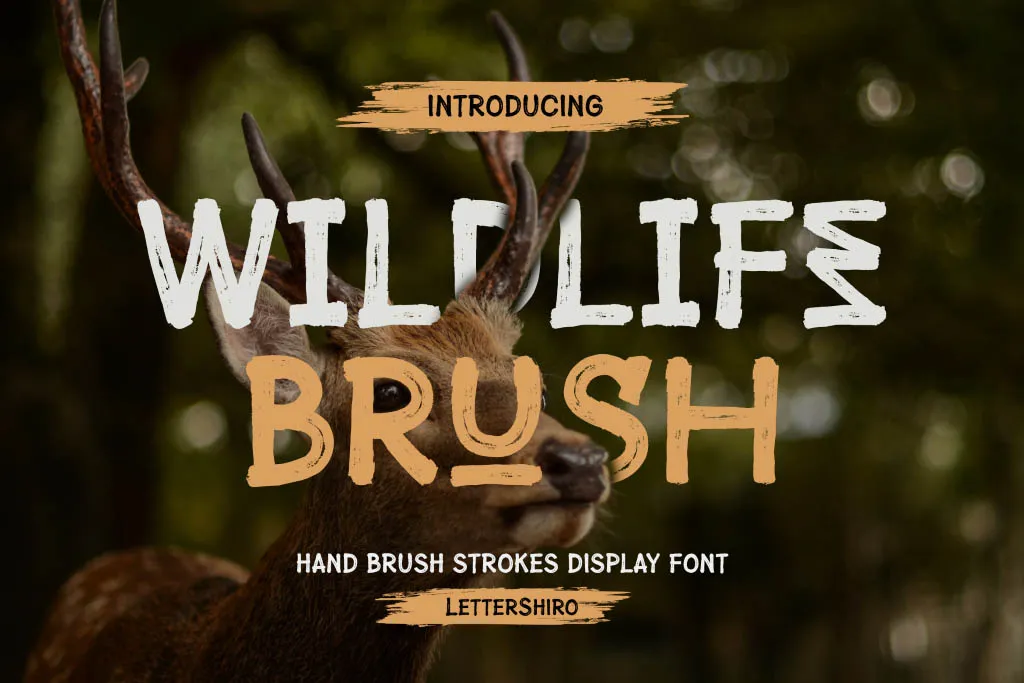
Wildlife Brush is a hand-brushed display font that features a natural, rugged feel, making it a great choice for zoo-themed designs.
2. Crispy Snack
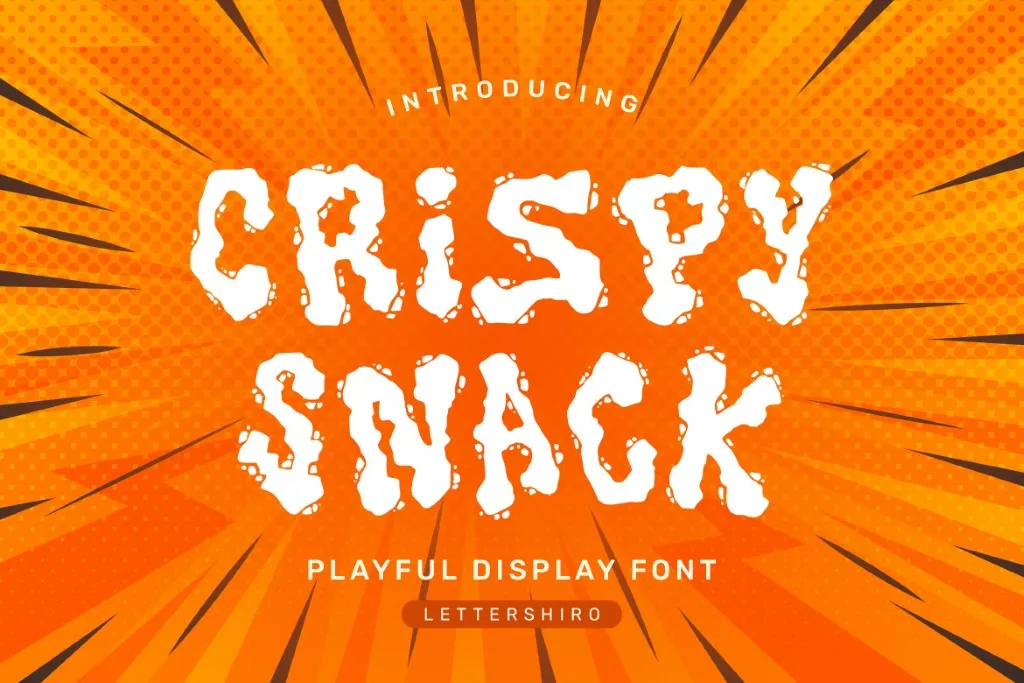
If you are looking for a bold and quirky font style, Crispy Snack is worth taking on your list! It adds energy to your food-related project and kids’ poster design.
3. Hyper Block
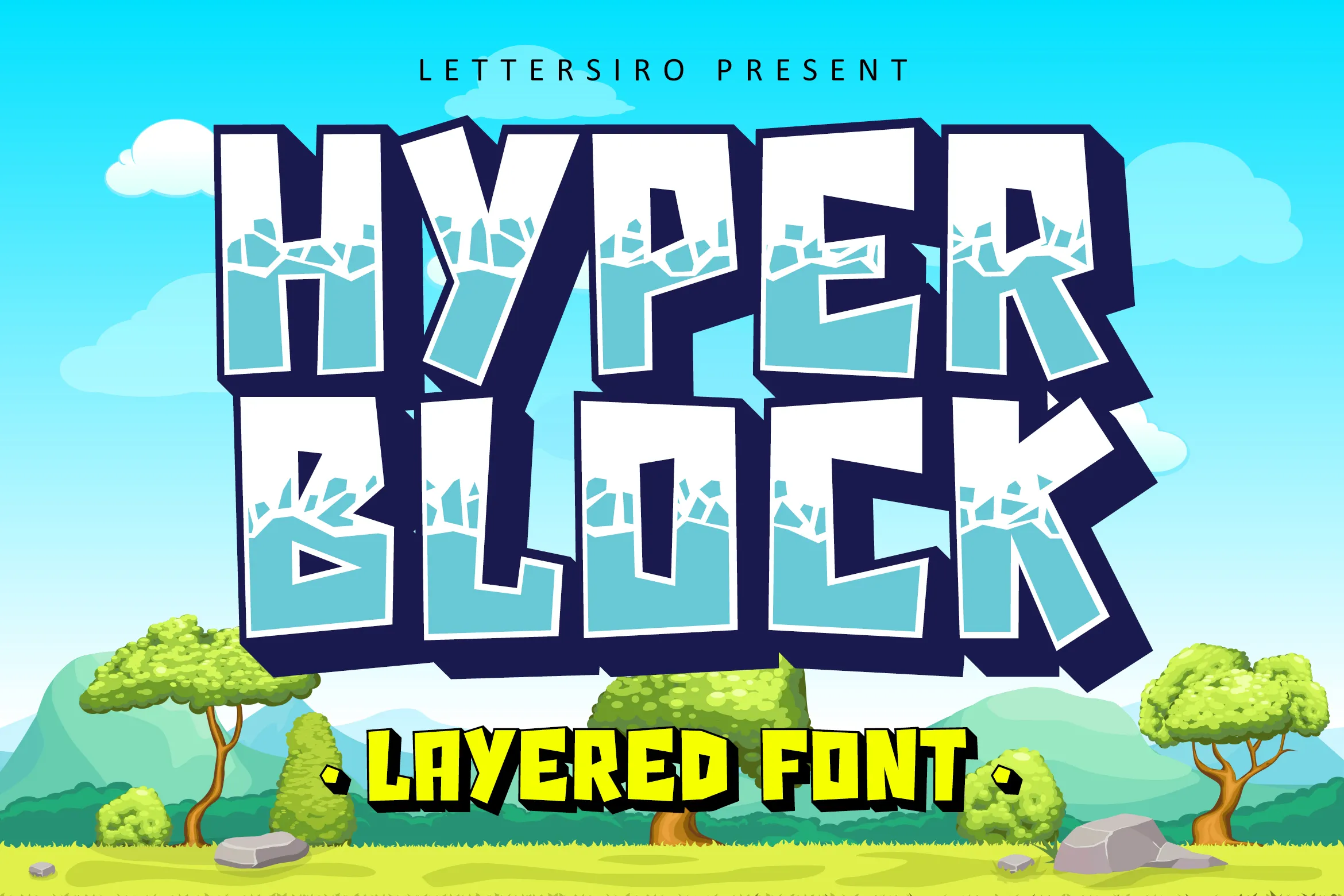
Here are the great display font examples to level up your design! Its bold, chunky shapes and cracked ice details create a fun, adventurous vibe. This one is worth adding to your notes if you are looking for a gaming-themed display font to use.
4. Hunger Flames
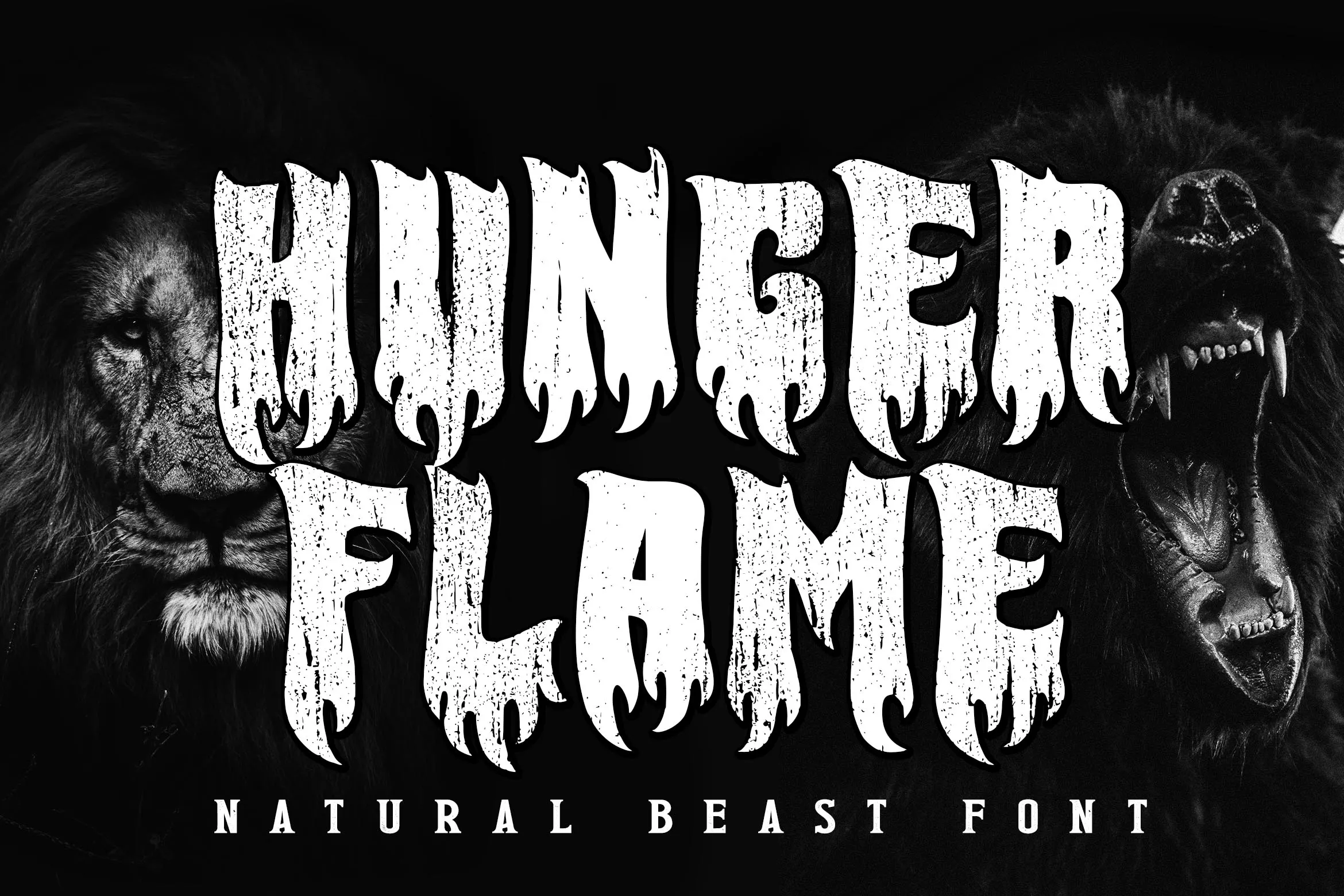
Hunger Flame has a rough, damaged appearance with jagged, flame-like edges, making it a striking, fierce display typeface. It’s made for intense visuals that need a wild, aggressive look.
5. Hulk Comic
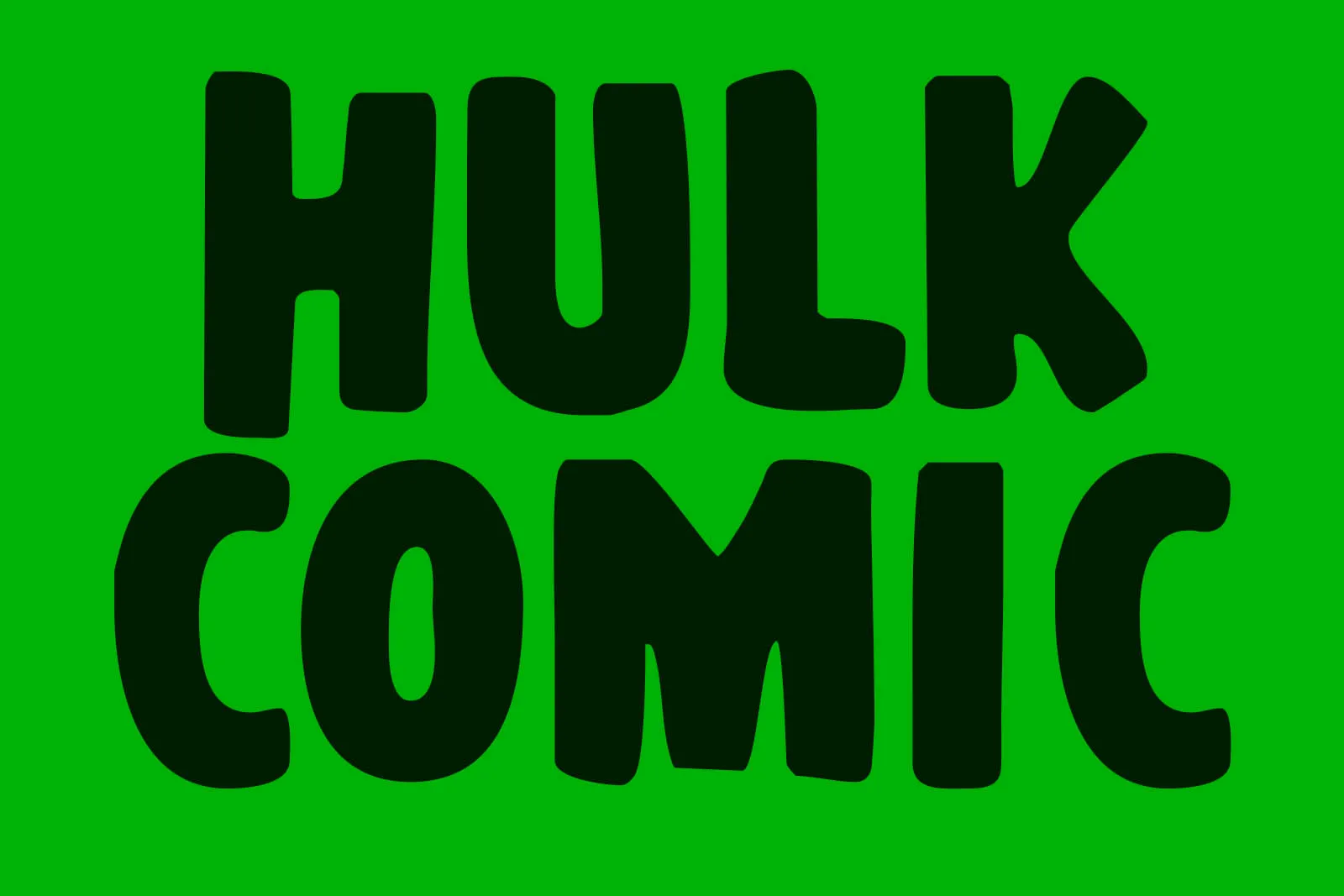
Hulk Comic packs a punch with its bold, chunky letters and rounded edges! Whether you’re designing for comics, kids, or playful posters, this font brings the fun. It’s loud, it’s friendly, and it’s made to steal the spotlight.
6. Richman
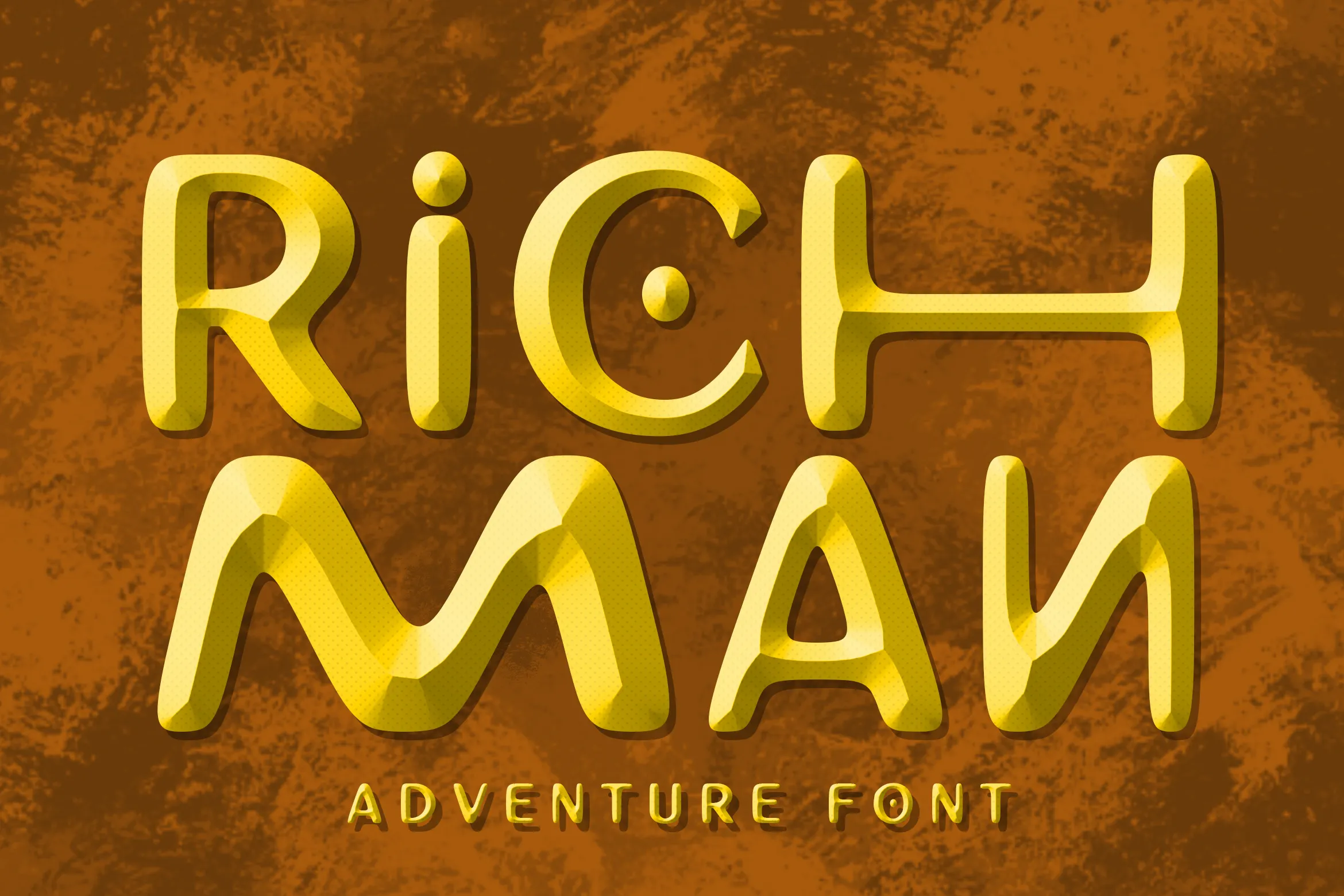
Richman is a bold display font inspired by ancient ruins and epic adventures. With its chiseled look, it’s perfect for the vibe of lost worlds and legendary quests.
7. Lettersiro
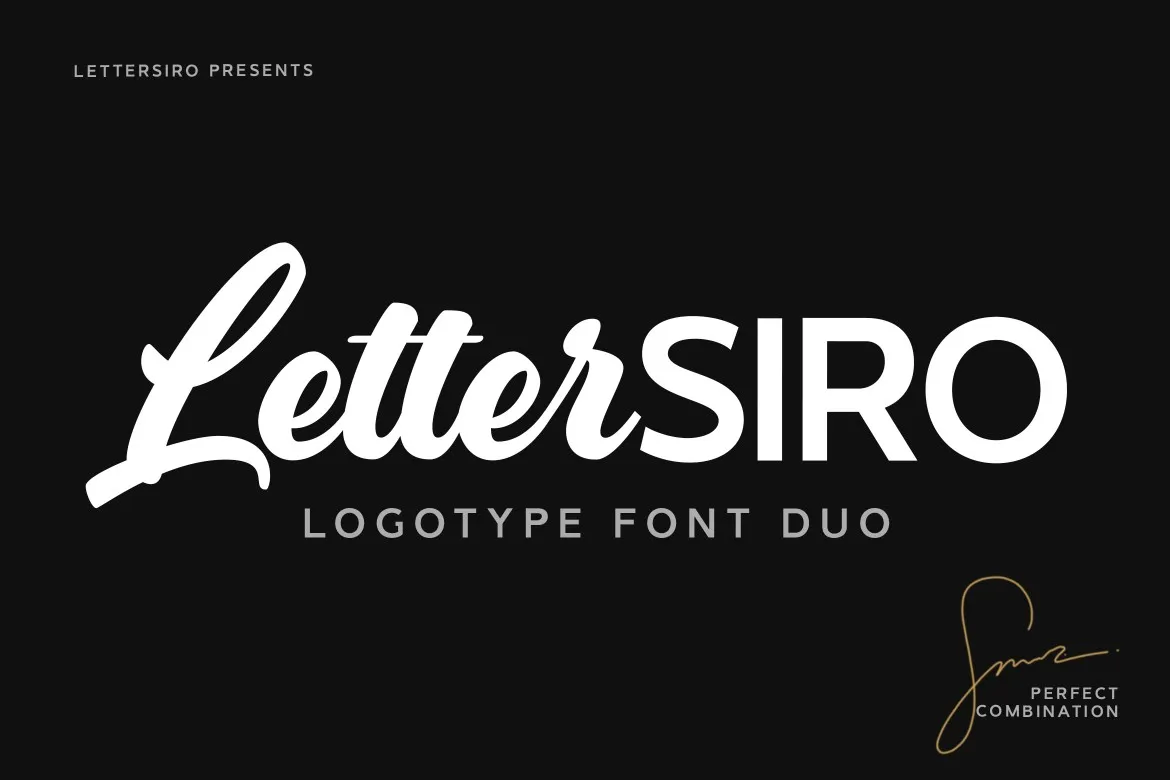
The script adds a personal touch, and the sans-serif keeps it modern and clear. Together, they make one of the best display fonts for any creative project.
8. Bomber Balloon
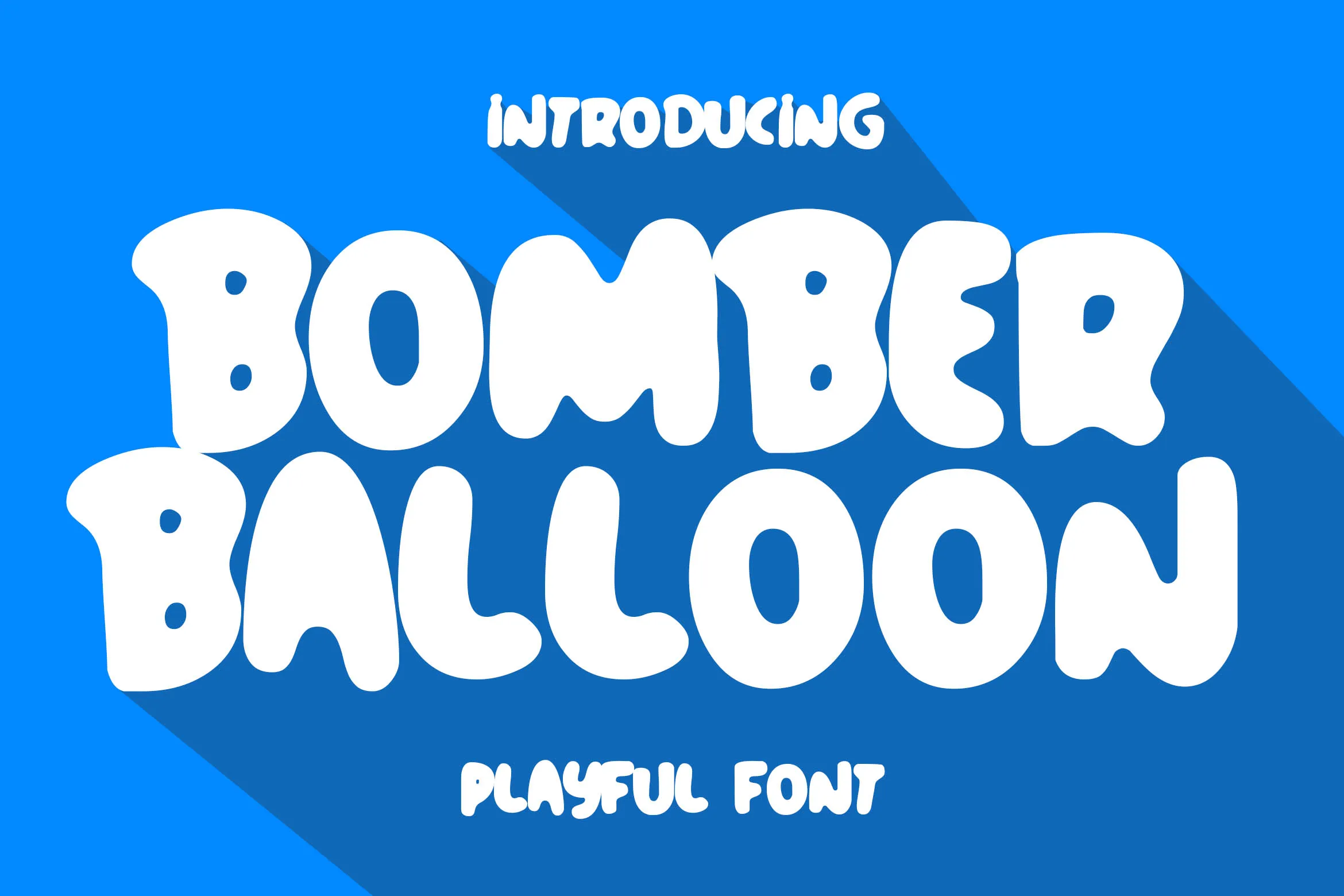
Bomber Balloon is one of the playful and bold display fonts with a fun balloon style. The font brings a cheerful and lighthearted feel to any playful branding.
9. Stalysta
The graceful strokes of Stalysta give this contemporary typeface a refined elegance. It is ideal for fashion or cosmetics branding and logos because of its elegant, feminine appearance.
10. Inzomniac
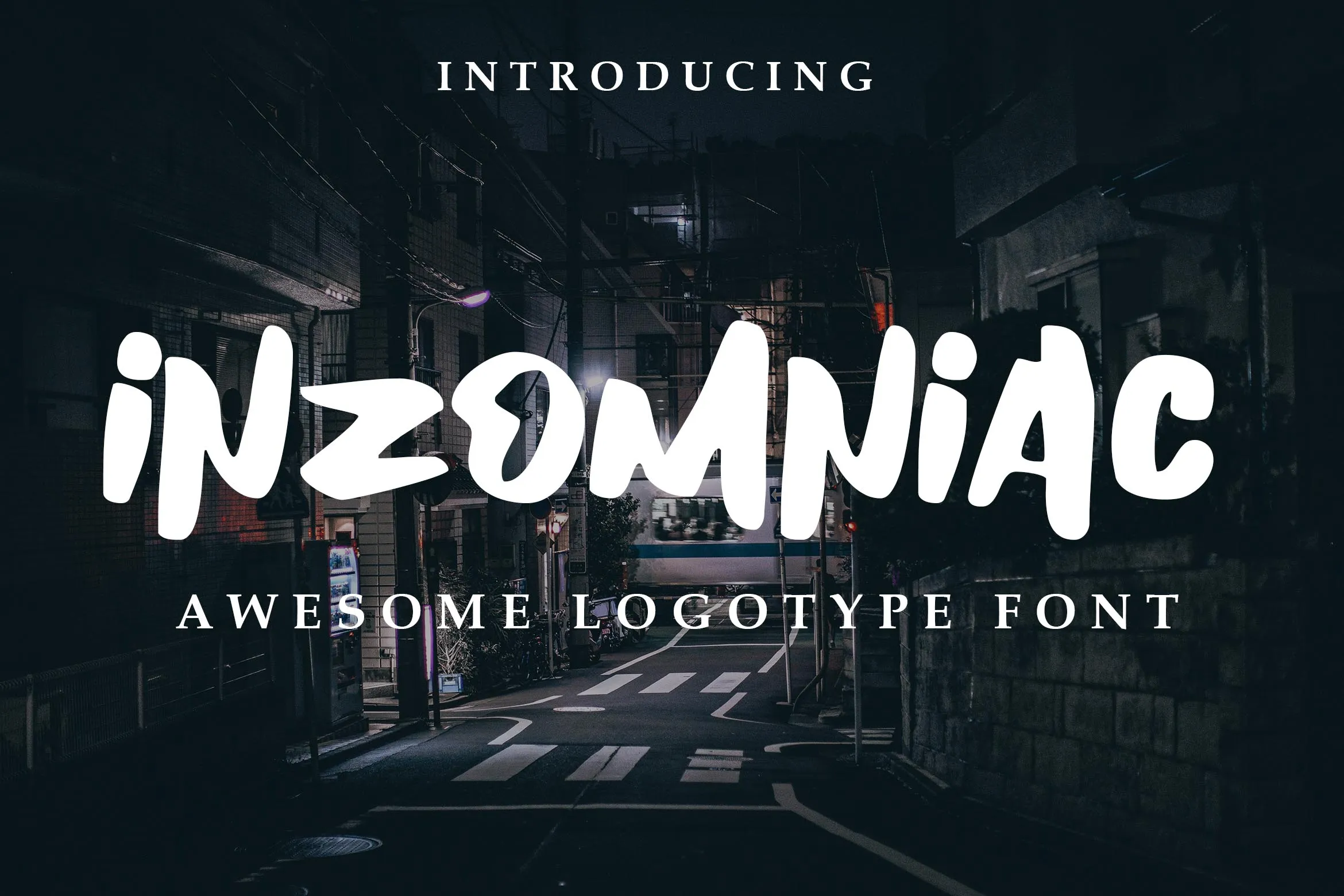
Inzomniac brings loud, raw energy with its bold and uneven strokes. It adds that rebellious edge your design needs to make noise.
11. Gojira Black
Inspired by bold headlines and monster-themed designs, it’s perfect for posters, games, logos, and anything that needs a fierce, attention-grabbing style.
12. Urban Nation
Urban Nation doesn’t whisper; it shouts. This font packs a street-style punch for mixtape covers and bold branding. Unabashedly urban, raw, and loud, it’s designed to draw attention.
13. Lost World
Lost World is an uneven strokes font inspired by wild places. It’s one of the cool display fonts that adds a bold, adventurous feel to your design.
14. Nature Breath
This bold, hand-drawn font features raw, organic strokes and an untamed charm that brings a sense of authenticity and character. With its slightly irregular lines and handcrafted feel, it adds warmth and emotion for projects that aim to feel human, expressive, and full of life.
15. Smooth Bellena
Smooth Bellena is a graceful script font with flowing strokes and a soft, romantic feel. It is perfect for wedding invites or anything that needs a touch of elegance, beauty, and charm in every curve.
16. Saber Brush
This font hits hard, bold, fast, and full of attitude. Perfect for sports graphics, music covers, posters, and edgy branding, it slices through the noise with sharp, energetic strokes that demand attention.
17. Cupcake Factory
Cupcake Factory is a sweet and playful font with bubbly, rounded letters. Perfect for bakery logos, kids’ party invites, packaging, and anything fun and cheerful.